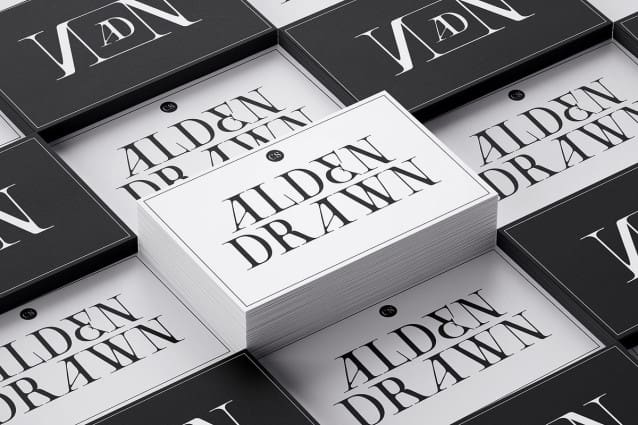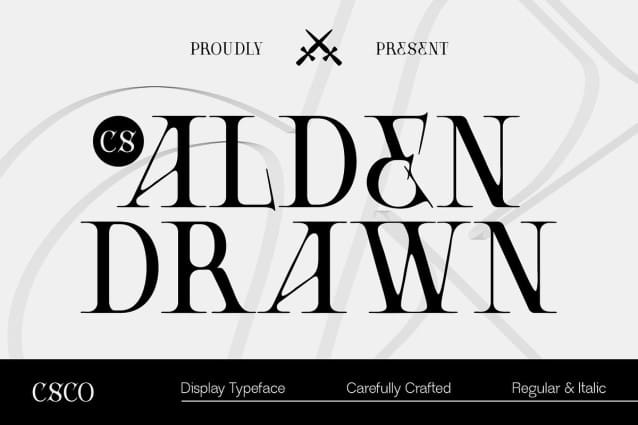
CS Alden Drawn Font
CS Alden Drawn Font is a display serif font that merges the structure of classic serif typography with a contemporary twist, bringing a timeless elegance to any project. Its precisely crafted letterforms feature smooth, balanced lines, making it an ideal choice for designs that aim to capture both tradition and sophistication. This fusion of old-world charm and modern design makes it suitable for a range of applications, from high-end branding to editorial layouts, where a unique blend of refinement and trend is desired.
Hand-Drawn Effect for Artistic Touch With a subtle hand-drawn effect, this drawn font exudes a sense of authenticity and warmth that distinguishes it from conventional serif fonts. Each letter bears the detail and nuance of fine handwriting, adding an artisanal quality to the font. This hand-drawn touch not only enhances its visual depth but also conveys a sense of personal connection, perfect for designs that need to feel approachable yet elegant.
Perfect for Elegant and Luxurious Applications Ideal for formal invitations, luxury branding, and high-end editorial layouts, this drawn font brings a refined look to any design. Its versatile nature allows it to adapt seamlessly to different elegant applications, from classic branding to creative displays, adding sophistication and personality.